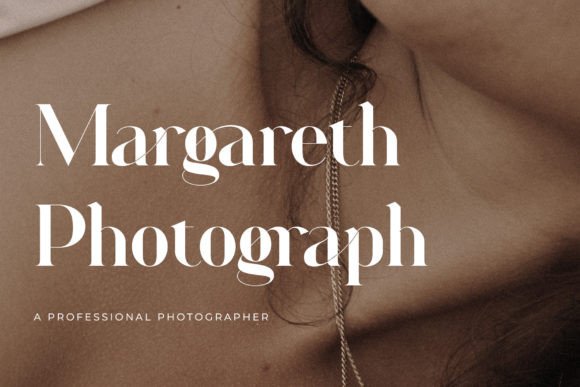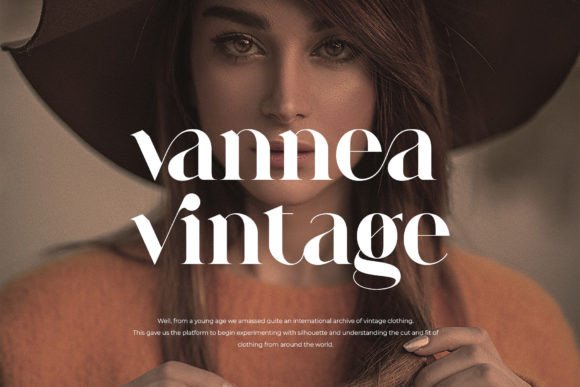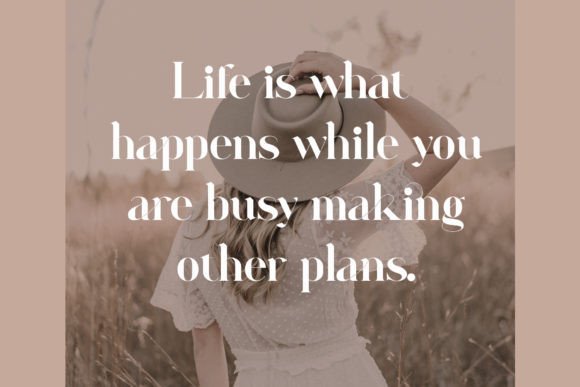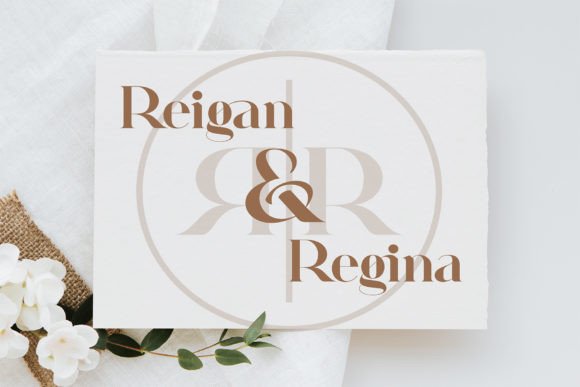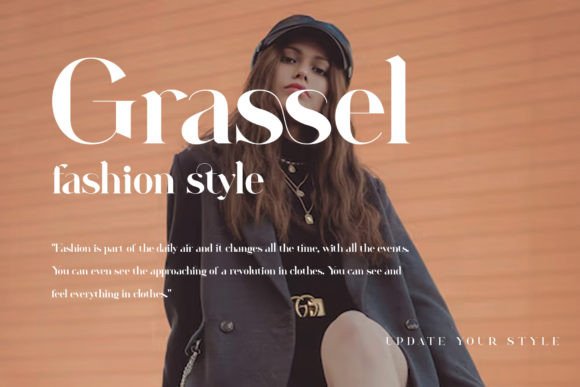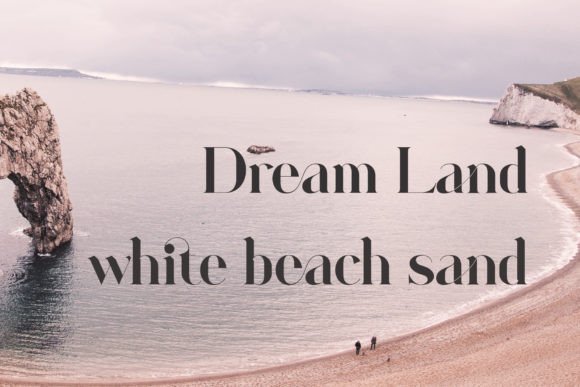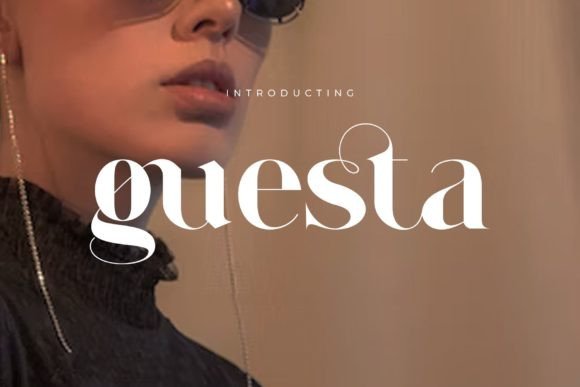
Discover the Elegance of Guesta Font: Elevate Your Designs with this Chic Serif Font
In the world of typography, a font can make or break a design. It’s the foundation upon which the entire visual aesthetic is built. For designers and crafters looking to add a touch of sophistication and charm to their creations, Guesta Font is an exceptional choice. This article will delve into the details of Guesta Font, exploring its features, benefits, and uses, and why it should be a valuable addition to your font library.
What is Guesta Font?
Guesta Font is a chic and charming serif font that has been designed to bring a touch of elegance to any project. Its classic yet modern aesthetic makes it versatile enough to be used across various themes and topics. Whether you’re working on a branding project, a website, a print design, or a digital craft, Guesta Font has the potential to elevate your creation and make it stand out.
Key Features of Guesta Font
So, what makes Guesta Font so special? Here are some of its key features:
- Serif Elegance: Guesta Font is a serif font, which means it has small lines or flourishes at the ends of its strokes. This gives it a classic, sophisticated look that’s perfect for designs that require a bit of tradition and luxury.
- Chic and Charming: The font’s design is not only elegant but also charming, making it suitable for a wide range of projects, from fashion and beauty to lifestyle and editorial content.
- Versatility: Guesta Font can be used for both digital and print projects. Its clear and readable design ensures that it performs well in various contexts, from body text to headings.
- Easy to Read: Despite its elegant design, Guesta Font remains highly legible, even at smaller sizes. This makes it practical for use in lengthy texts as well as short phrases or titles.
Benefits of Using Guesta Font
Guesta Font offers several benefits that make it an attractive option for designers and crafters:
- Enhances Aesthetic Appeal: With Guesta Font, you can instantly add a level of sophistication and style to your designs. Its elegant appearance can transform a simple project into something visually stunning.
- Saves Time: Having a versatile font like Guesta in your library means you can quickly find a stylish solution for your typography needs, saving you time and effort in searching for the right font.
- Consistency Across Projects: Using a consistent font across your projects helps in building a strong brand identity. Guesta Font can become a part of your brand’s visual signature, making your creations instantly recognizable.
- Wide Range of Applications: From website headers and blog posts to invitations and branding materials, Guesta Font’s versatility means it can be used in a multitude of applications.
How to Use Guesta Font Effectively
To make the most of Guesta Font, consider the following tips:
- Pair it Wisely: When combining Guesta Font with other fonts, ensure there’s a good contrast. Pairing it with a sans serif font for body text can create a harmonious and engaging design.
- Experiment with Sizes and Weights: If Guesta Font comes in multiple weights, experiment with them to create visual hierarchy in your designs. Using a bold weight for headings and a regular weight for body text can enhance readability and aesthetics.
- Consider Line Spacing: Especially in longer texts, pay attention to line spacing to ensure that your Guesta Font remains easy to read.
| Font Name | Guesta Font |
| Author | dylla studio |
Guesta Font is more than just a serif font; it’s a design asset that can elevate your projects with its chic and charming appearance. Its versatility, elegance, and readability make it suitable for a wide range of applications, from digital designs to print materials. By incorporating Guesta Font into your font library, you’re equipping yourself with a powerful tool to enhance your designs and make them stand out. Whether you’re a professional designer or a crafter, Guesta Font is sure to become a favorite in your collection.